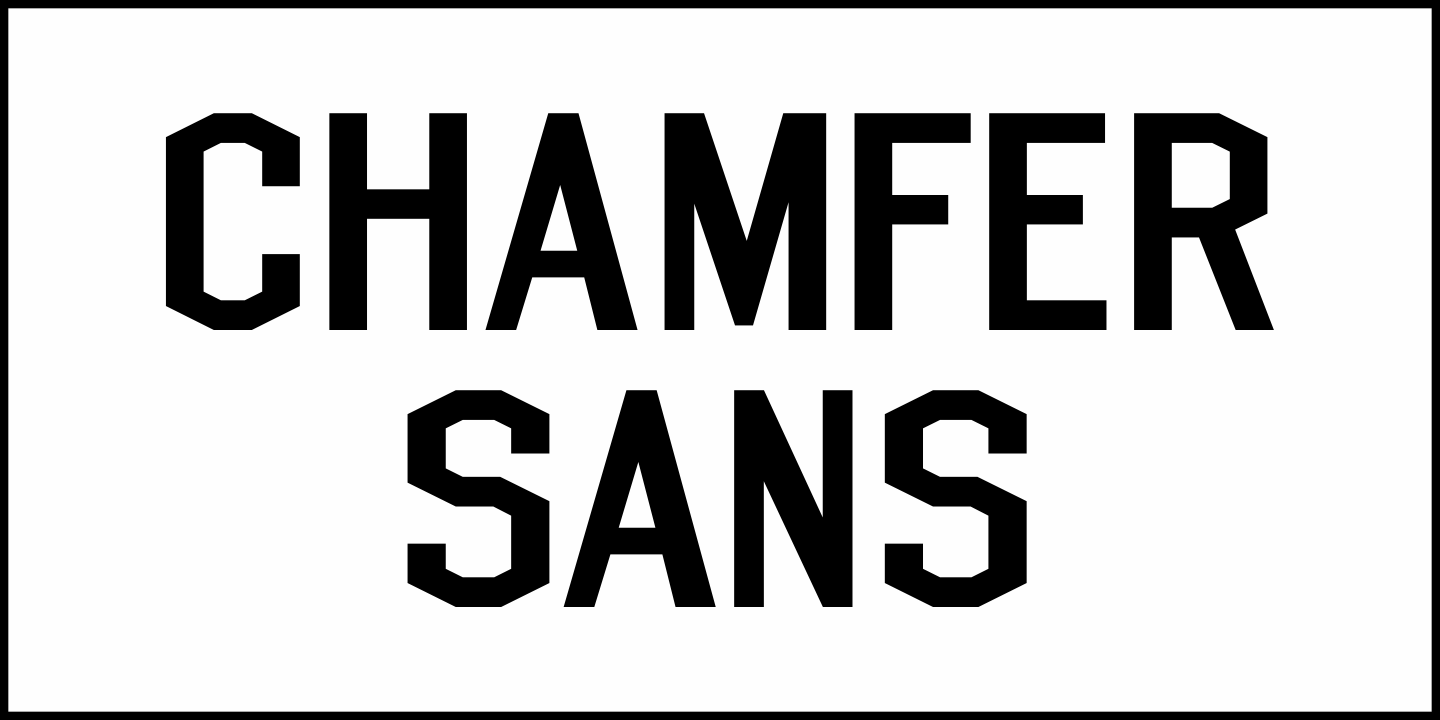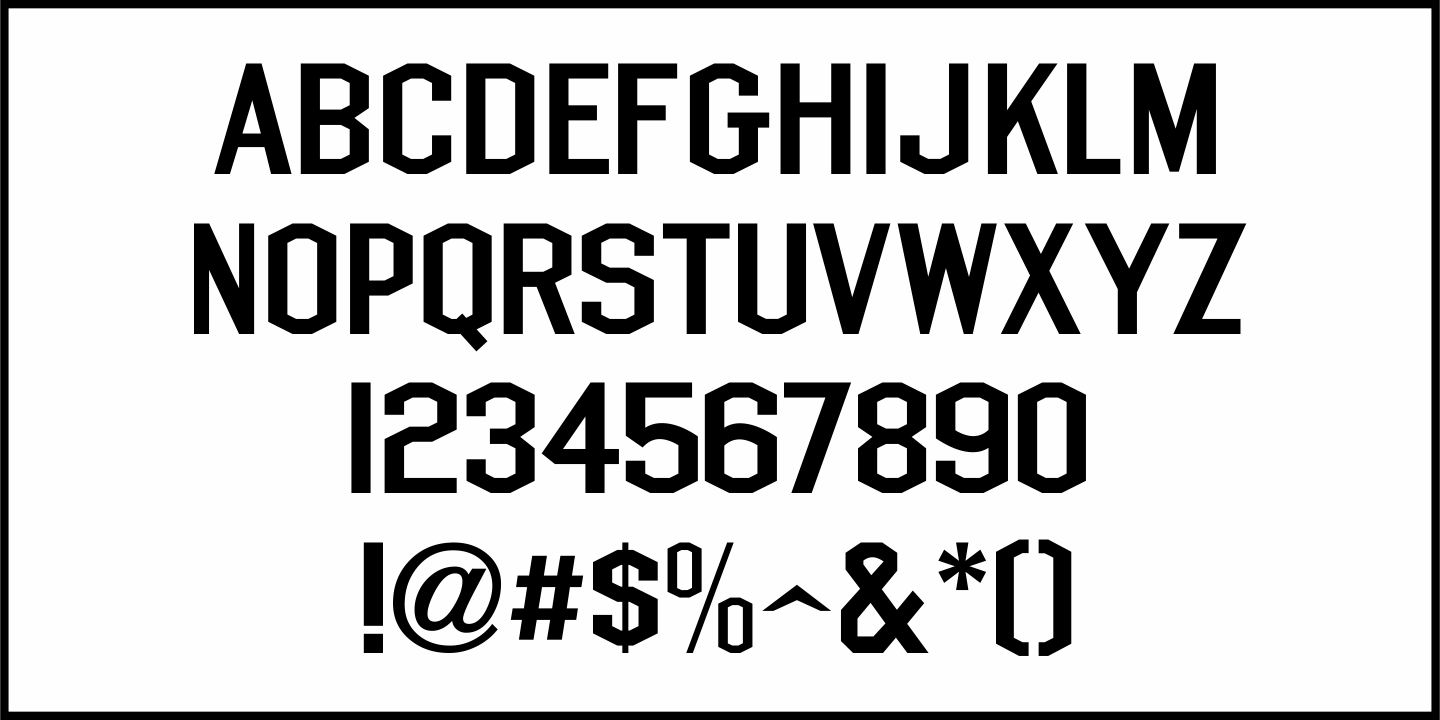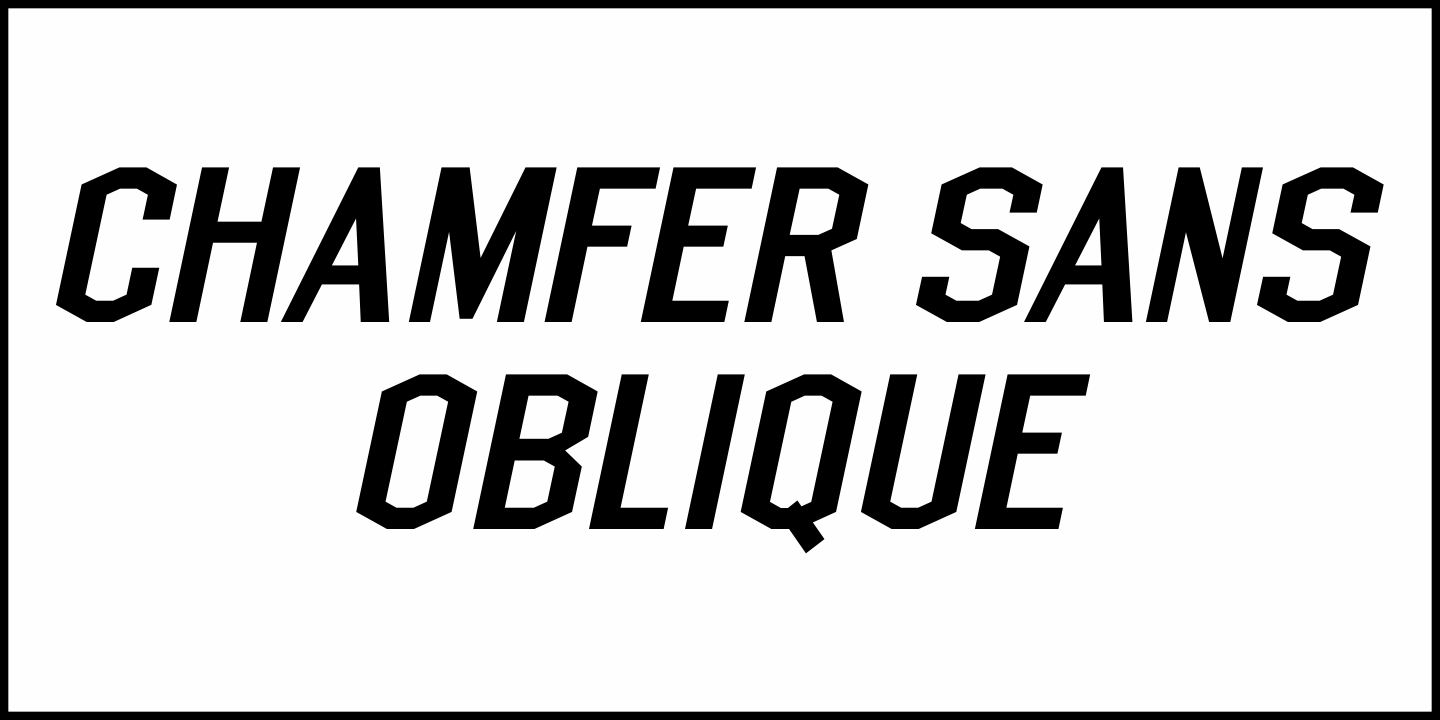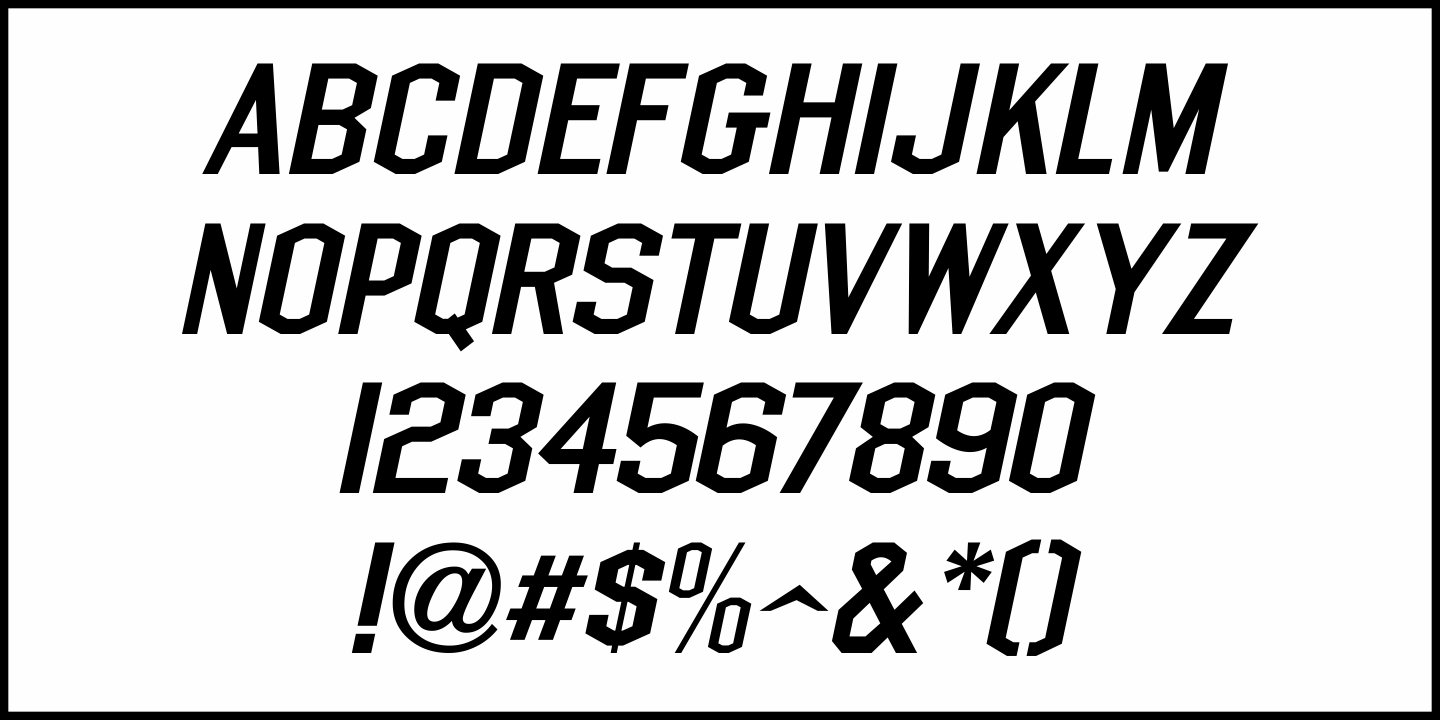
Chamfer Sans
The 1922 instructional lettering book "Imelli's Alphabets & Layouts" contained an alphabet called "Half Block Plain, Thick and Thin".  This was a chamfered sans serif style which was extremely popular amongst sign painters of the early 1900s.
This is now available as Chamfer Sans JNL in both regular and oblique versions.